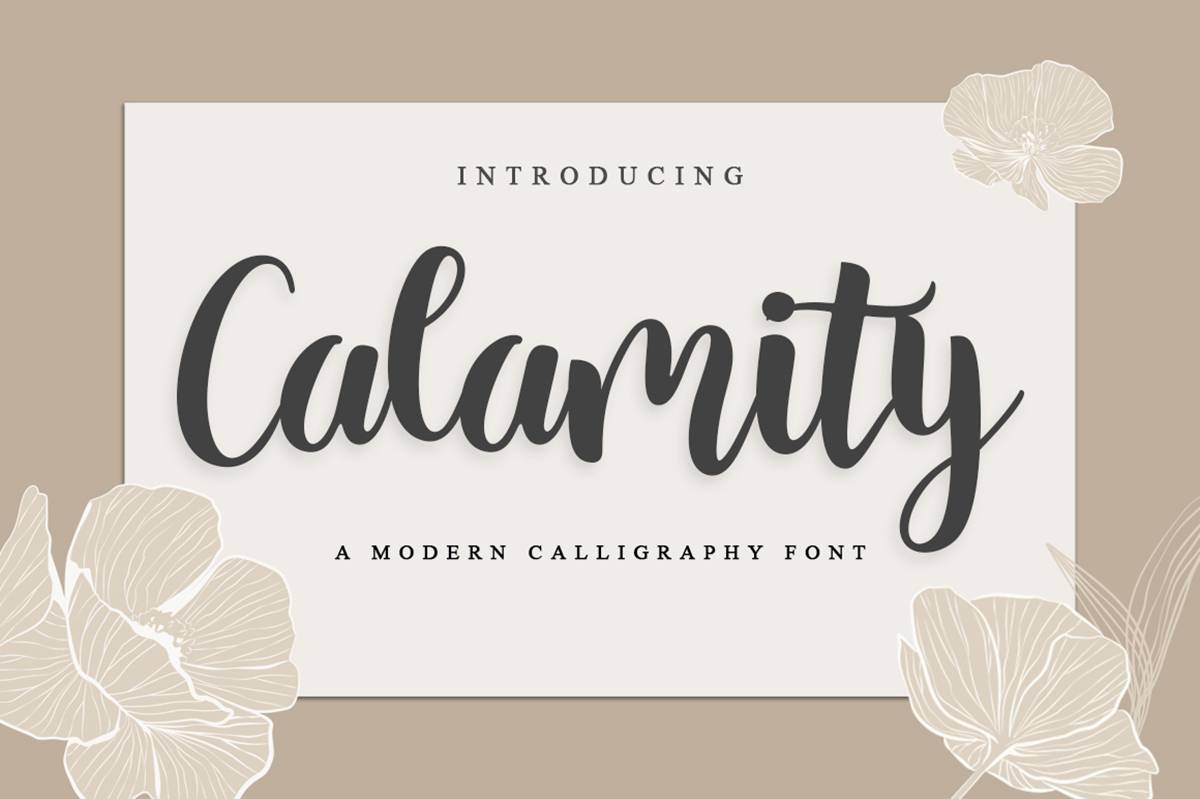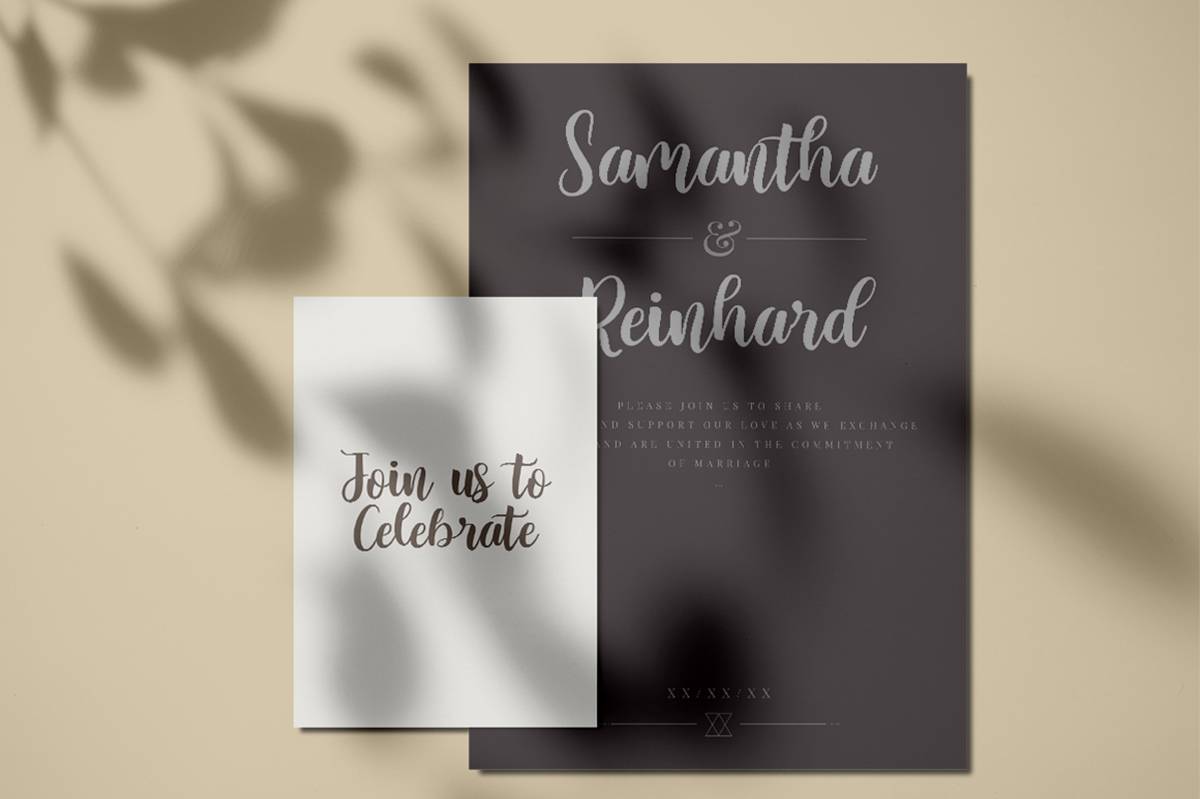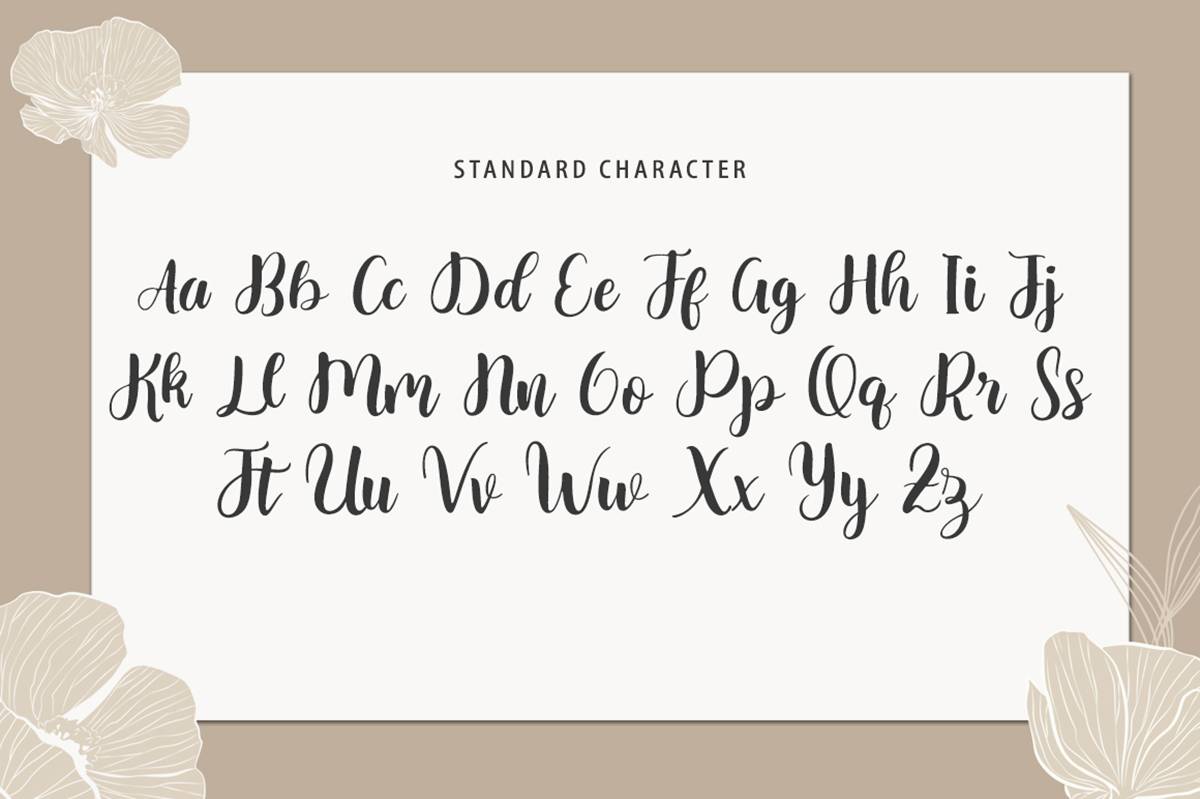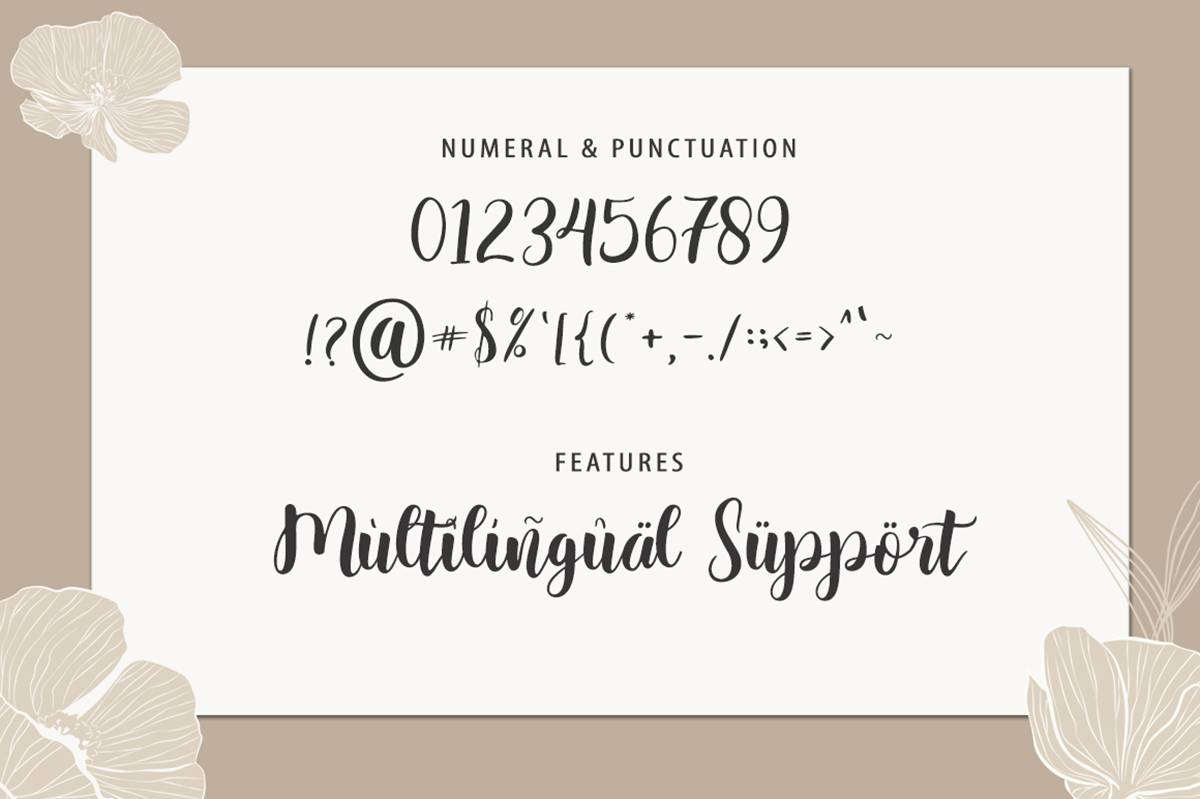
Calamity Script is a lively and elegant script font that features smooth, fluid strokes with a modern calligraphic style. It combines a bold, slightly condensed weight with playful swashes and unique letterforms, making it perfect for creative branding, invitations, and stylish headlines. This font beautifully conveys a sense of charm and sophistication, ideal for adding personality and warmth to design projects.
Calamity Script Font
About Calamity Script Font